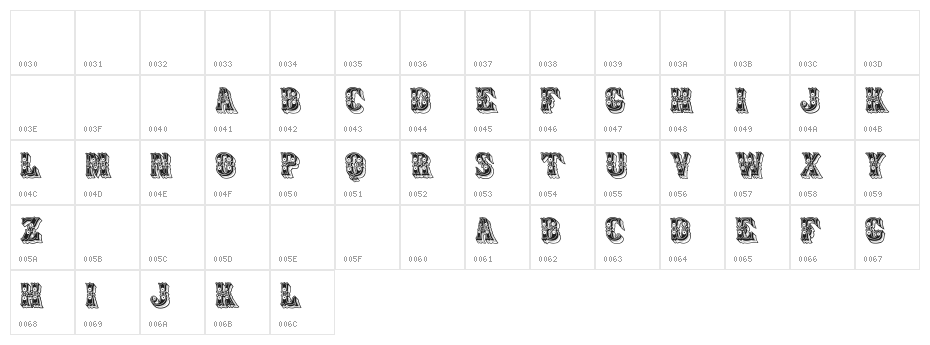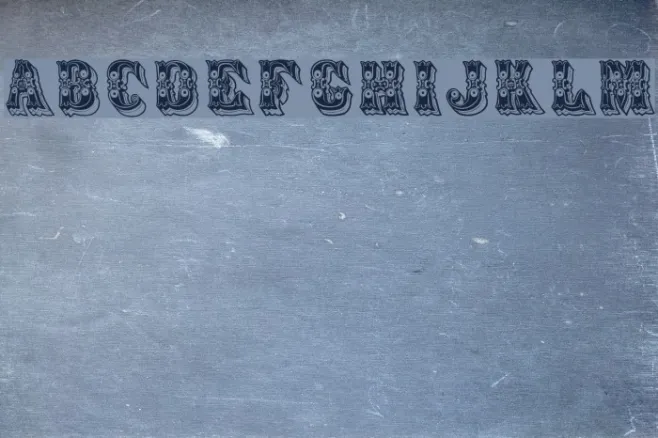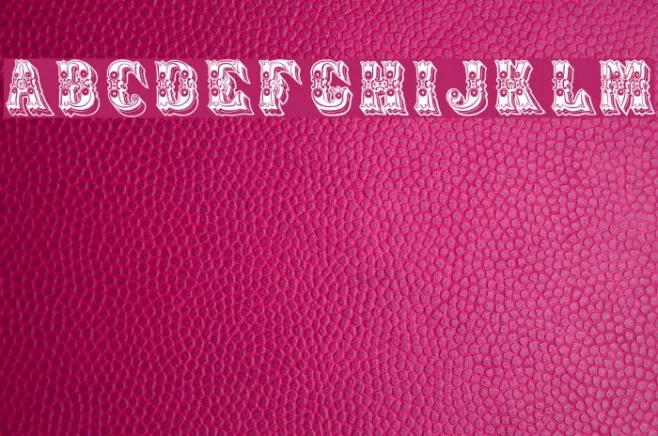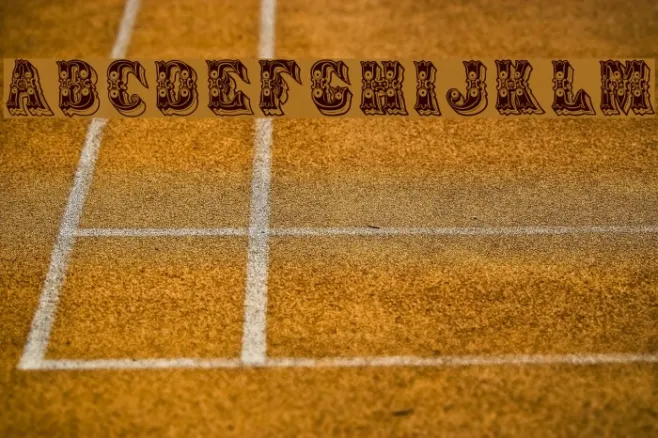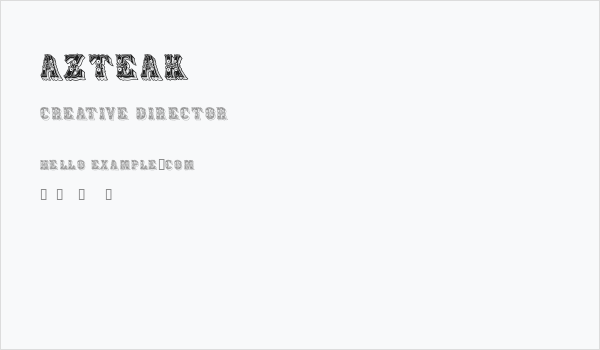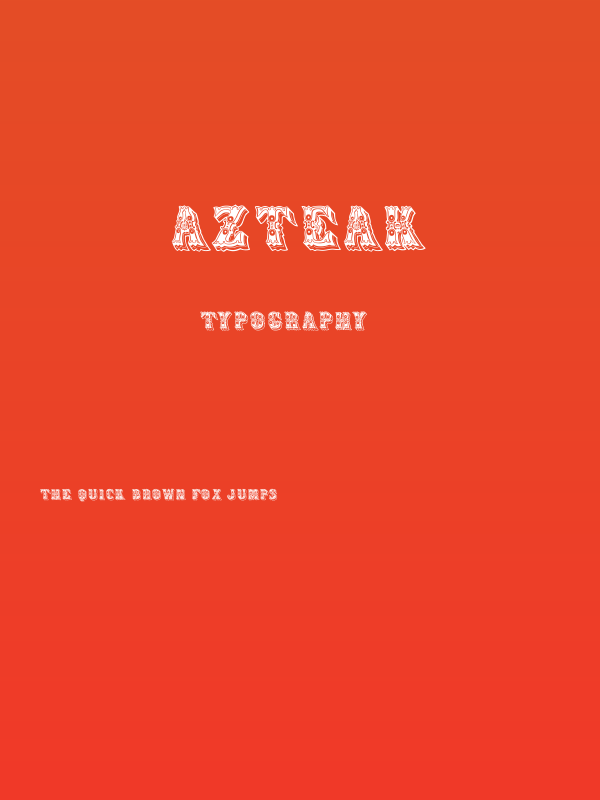
Azteak Font
Azteak Description
This font features an intricate and decorative design, reminiscent of ancient Aztec art. Each character is adorned with elaborate patterns and geometric shapes, creating a visually striking and unique appearance. The bold outlines and detailed interior designs give the font a three-dimensional effect, making it stand out in any context. The style is both historical and artistic, capturing the essence of traditional craftsmanship while offering a modern twist. The font is perfect for projects that require a touch of cultural richness and visual complexity.
| Proposed Projects | Ideal for cultural event posters, artistic book covers, themed restaurant menus, and branding that requires a historical or ethnic touch. |